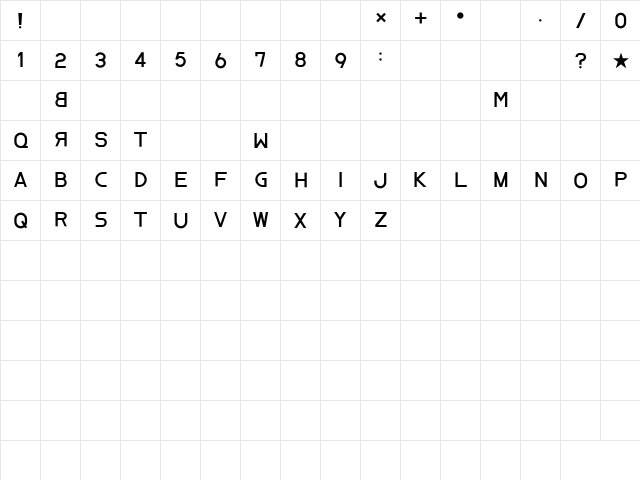
MW CODE Regular
Design Context for MW CODE Typeface
MW CODE uses fixed-width spacing throughout, giving it the structured, systematic character associated with coding environments and technical documentation.
Well-suited to data-driven dashboards, coding tutorials, and any design that wants to reference the world of programming.
Pro Tip: Use MW CODE with slightly increased line-height for extended reading — fixed-width spacing can feel dense in longer passages without extra breathing room.